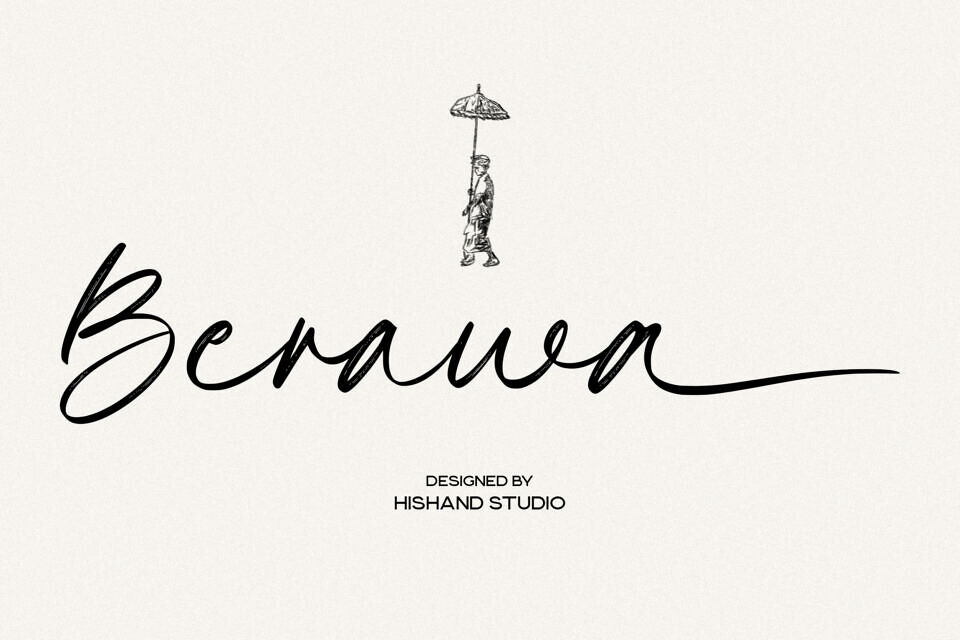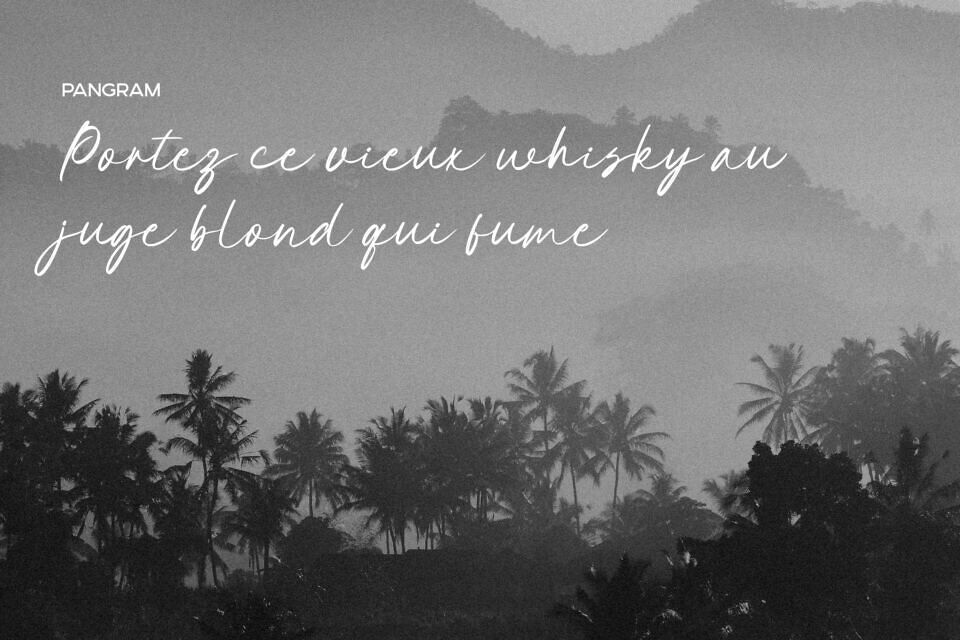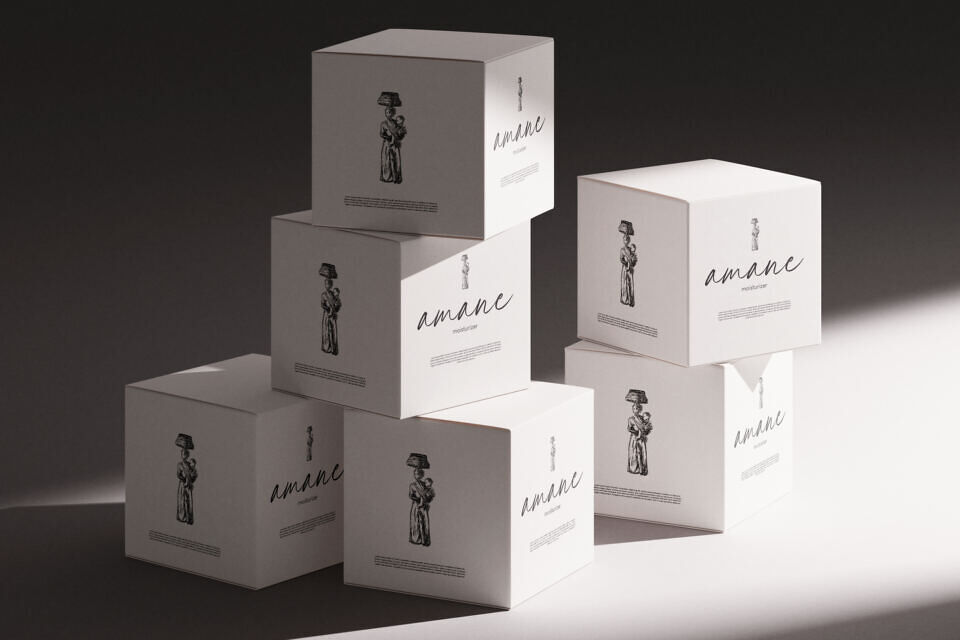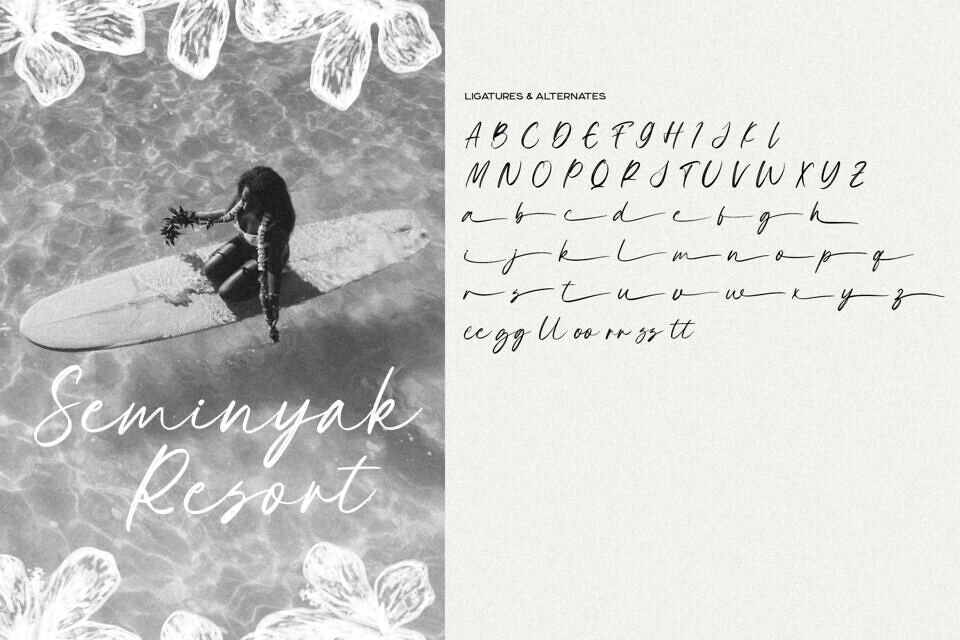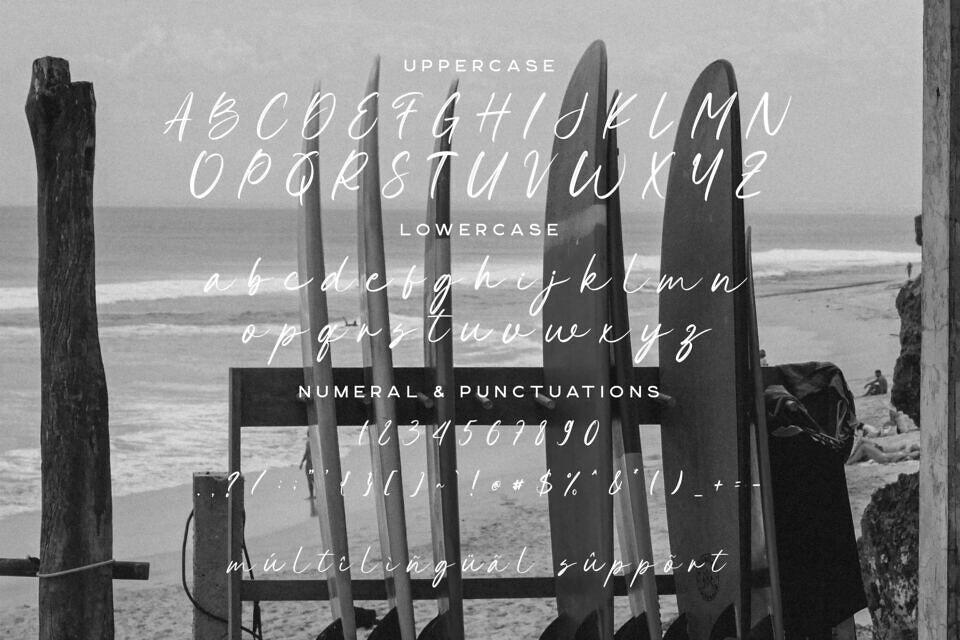
Berawa Aesthetic is an elegant brush script font that captures the fluid, rhythmic energy of hand-painted lettering with a modern, sophisticated edge. It is defined by elongated strokes and a distinct “dry ink” texture that gives it a high-end, artisanal feel, reminiscent of ink meeting textured paper.
The letterforms are graceful and airy, featuring sweeping curves that connect with a natural, effortless flow. While many brush fonts can feel heavy, cluttered, or overly aggressive, Berawa maintains a slender, refined silhouette that keeps the overall design feeling light and luxurious. It works beautifully for boutique hotel identities, luxury wedding stationery, artisanal skincare packaging, and high-fashion headlines.